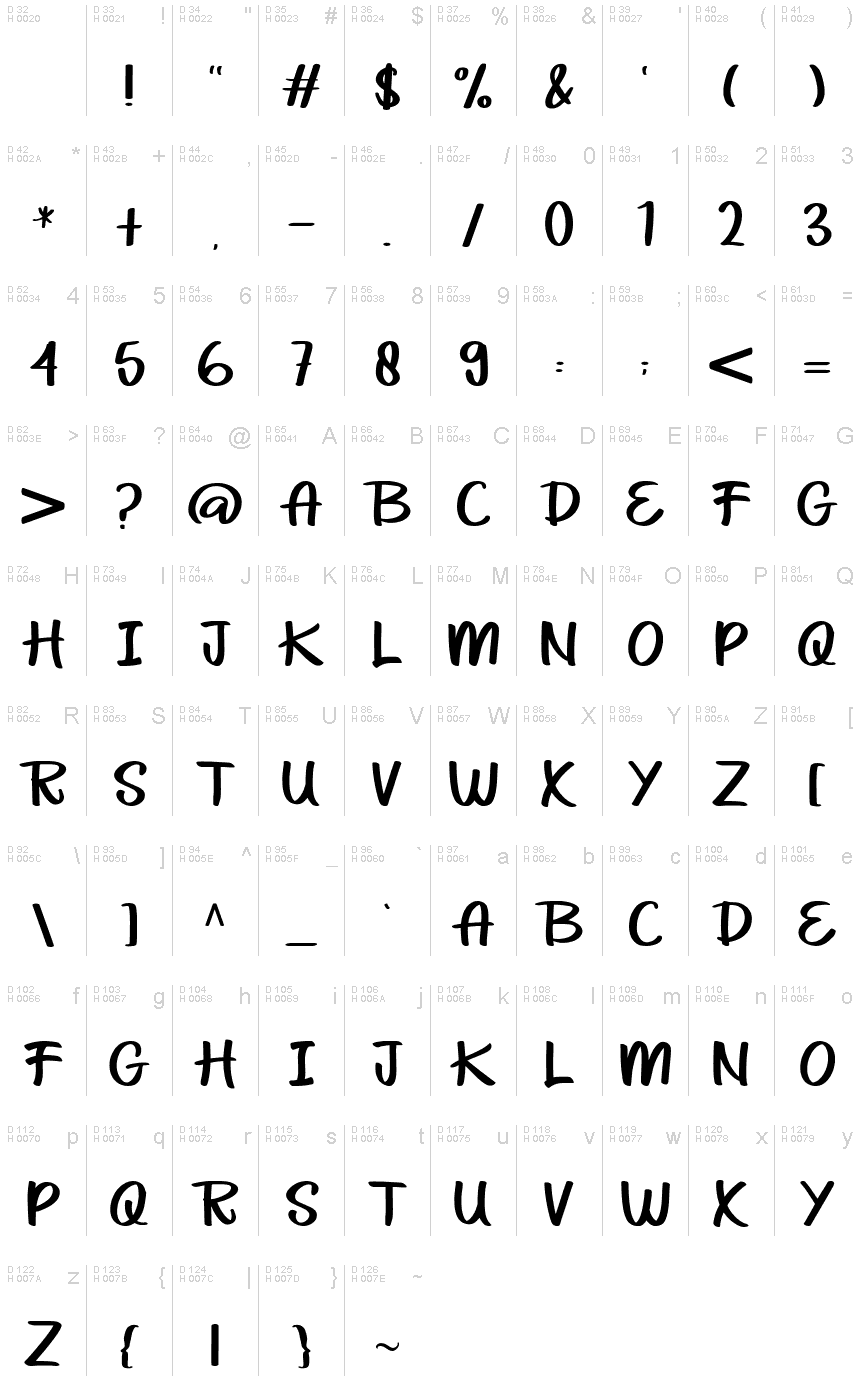
Get Relax
Get Relax, the vibrant and whimsical font designed by nomlimofont, is the perfect addition to your creative projects. This playful handwritten typeface is ideal for anything from greeting cards and invitations to branding materials and social media graphics. With its youthful energy, it's sure to bring a sense of joy and lightheartedness to any design. Whether you're creating a school project or a business logo, Get Relax's semi-bold font and moderate width will make your text stand out while maintaining readability. Let Get Relax infuse your designs with playful charm and infectious energy!